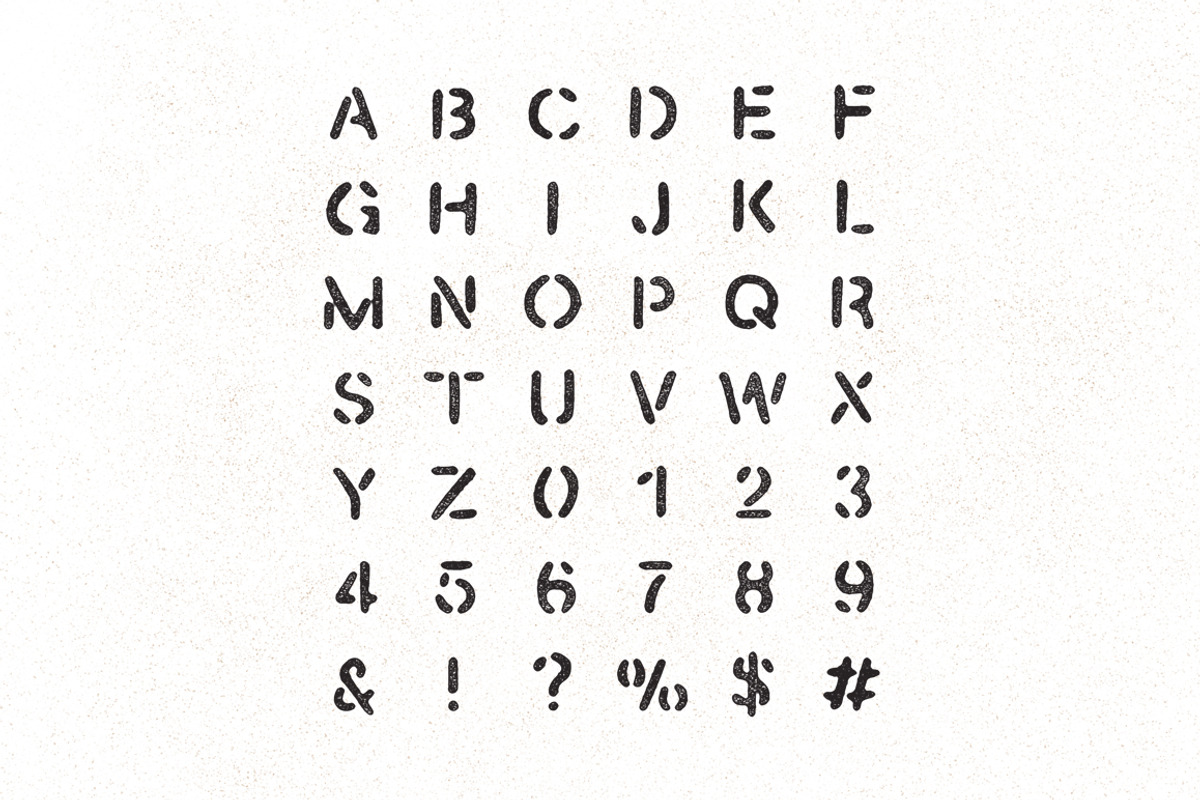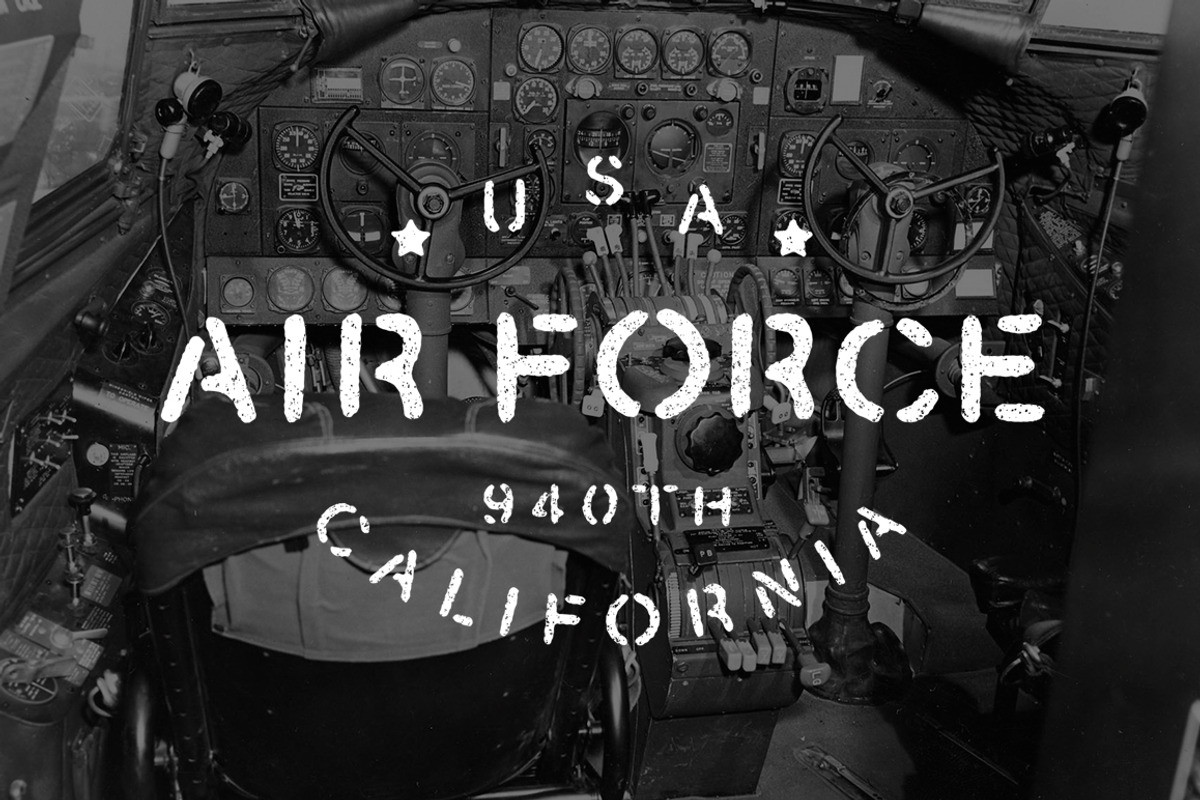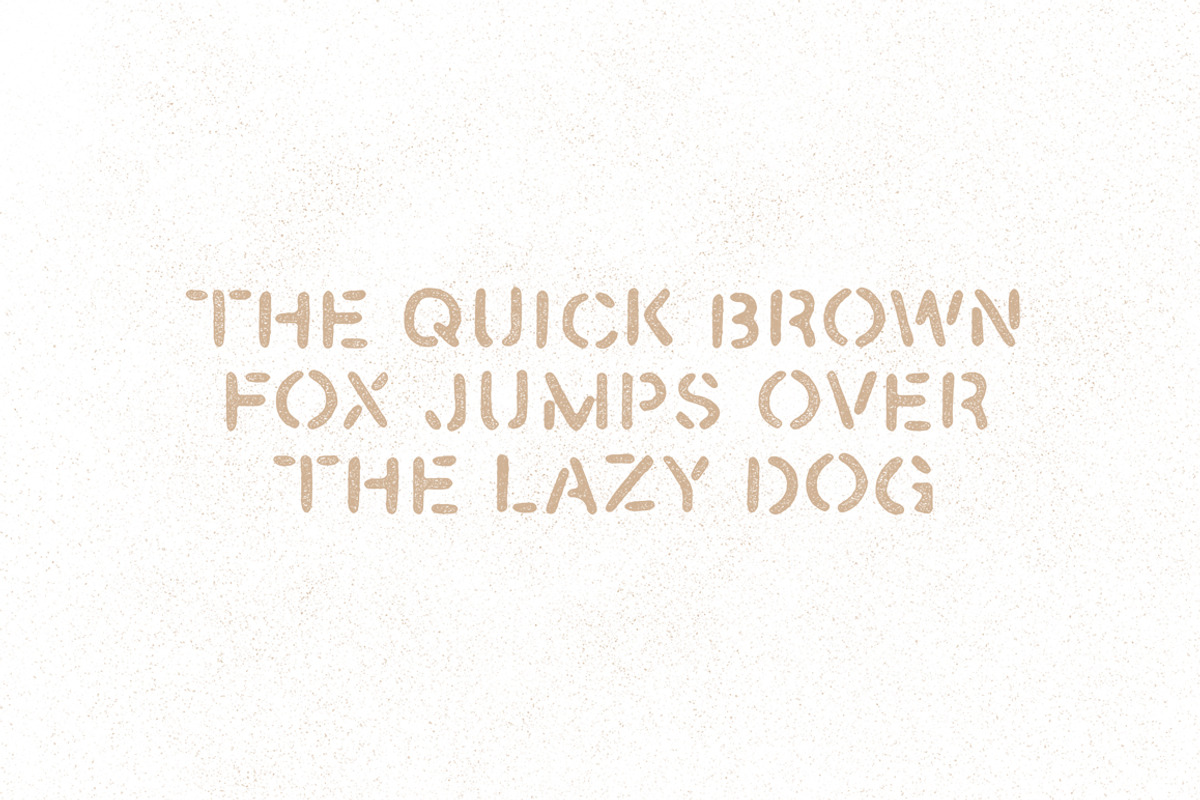
Sergeant - Hand Drawn Stencil Font
Sergeant - Hand Drawn Stencil Font by James Lafuente is a font selected for branding, posters, packaging, typography.
Why Sergeant - Hand Drawn Stencil Font is worth a look
Sergeant - Hand Drawn Stencil Font by James Lafuente fits naturally into Branding, posters, packaging, typography.